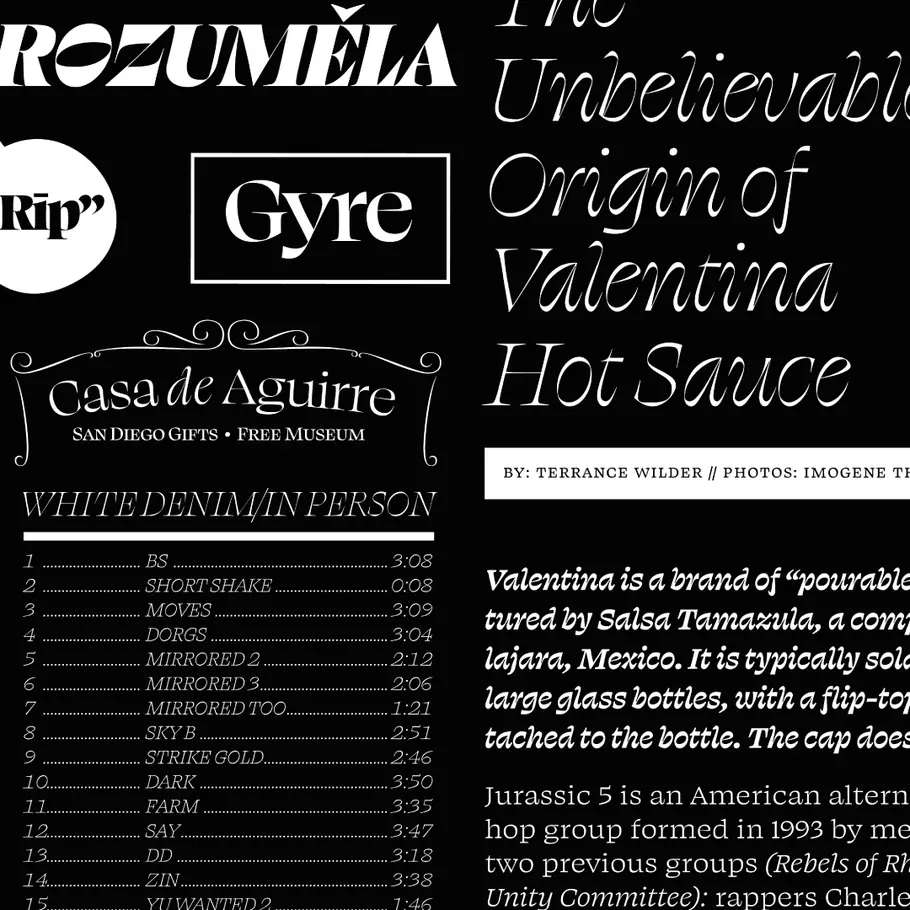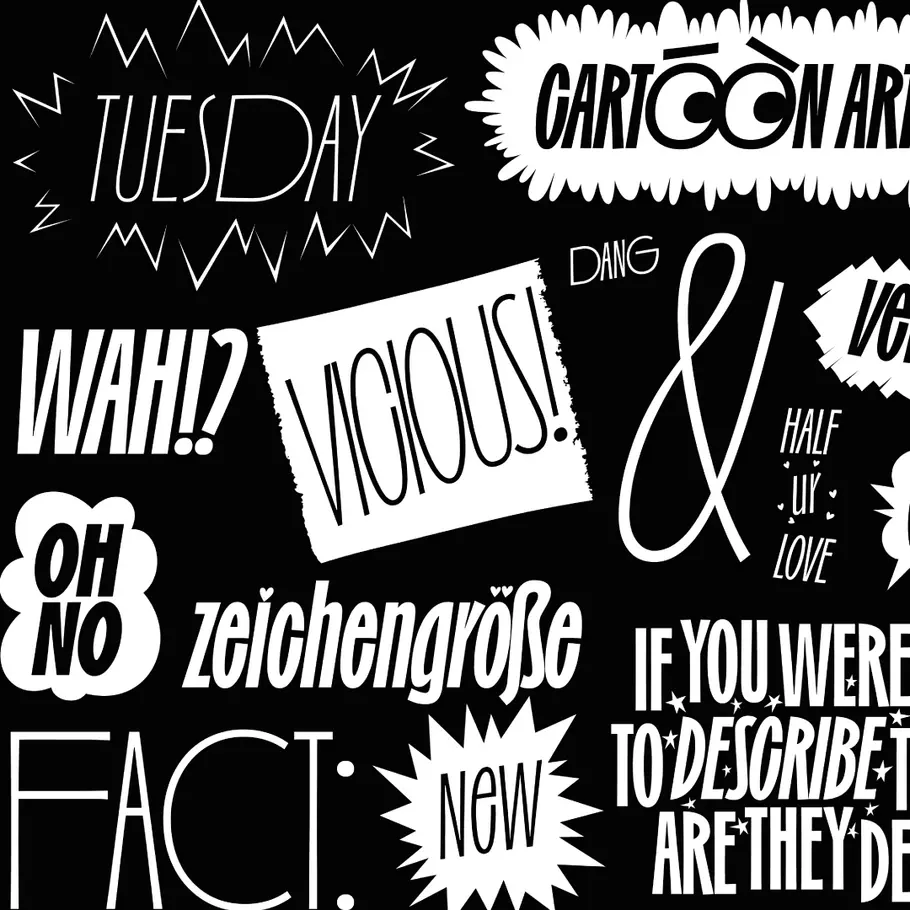
Creative Characters Ep. 12: James Edmondson.
James Edmondson.
OH no Type Co. creates “the fonts no one wants,” if you believe the intro on its Instagram page. But of course, that’s complete rubbish—OH no founder James Edmondson is releasing some of the most exciting typography around, fonts that everyone wants (or should want). His portfolio is an eclectic mix of psychedelic swirls, liquid curves, and inventive interpretations of everyday styles, all pulsing with reckless energy and with personality to spare.
“I was having a conversation a couple of days ago with students,” he tells host Charles Nix, “and one of them asked me, ’when something is kind of getting away from you or getting away from the original genre or idea that you had at the outset, at what point do you try and correct it? Or do you just let it be the thing that it wants to become?’ And I think it’s a lot more fun for me if it becomes the thing that it wants to become, and I keep a stranglehold over it as it’s developing in its infancy.”
His latest release, Irregardless, captures this spirit perfectly. “I have no idea where it came from, and for much of the time I spent working on it, I had no idea where it was going,” he writes on its specimen page. ”It was an exercise in fighting my impulses and drawing habits to create something that felt new and uncomfortable.”
“I think problems can be fixed,” Edmondson adds. ”Most of the time we have it in our heads that typefaces are immovable things, or they get released and then nothing ever happens. But that’s not really true—people are doing character set extensions all the time and fixing technical things all the time. I just know that it’s impossible for me to do something perfect. It’s not gonna happen, so I will absolutely do my best and I’m always going to give it all I have. But for me and my own happiness and, and how I define my version of success, it’s good to just get it out there.”
In addition to creating typefaces, James is something of a media mogul as well (jokes, kind of). He has his own podcast, Ohno Radio, and a forthcoming limited edition book version of his OH no Type School blog series. Keep an eye out for that.